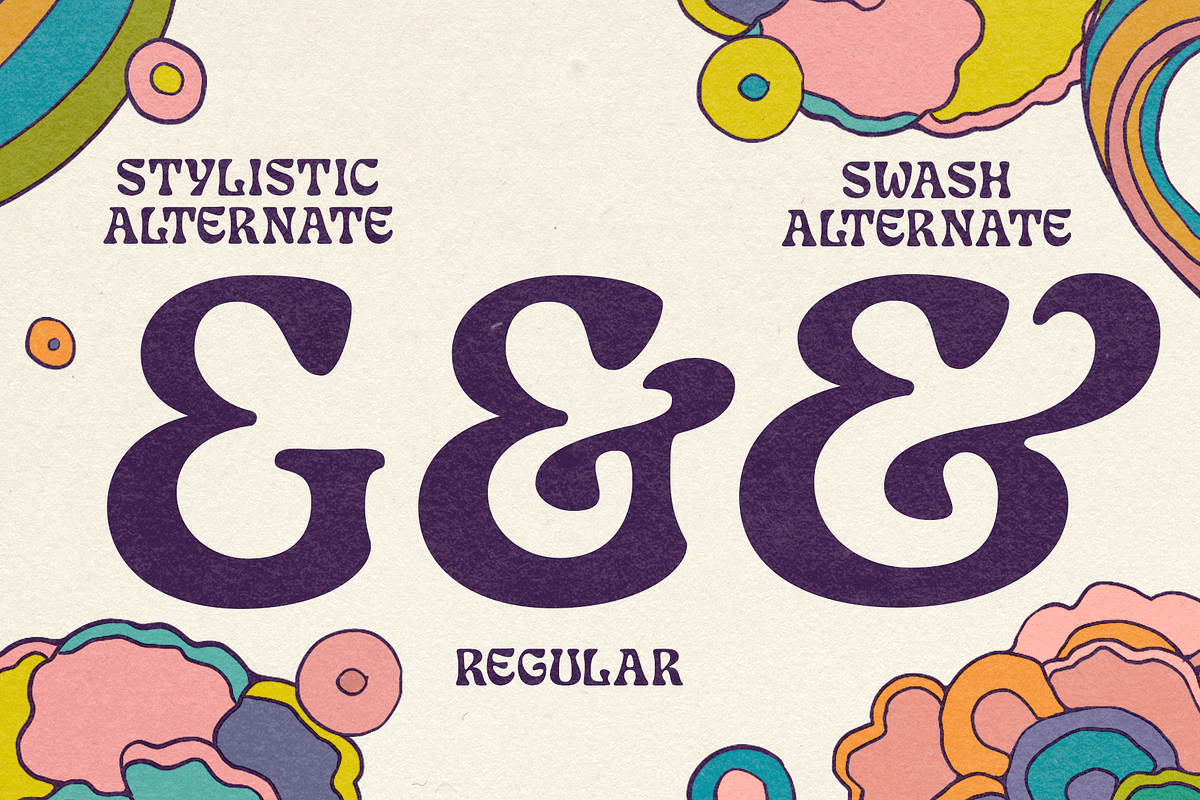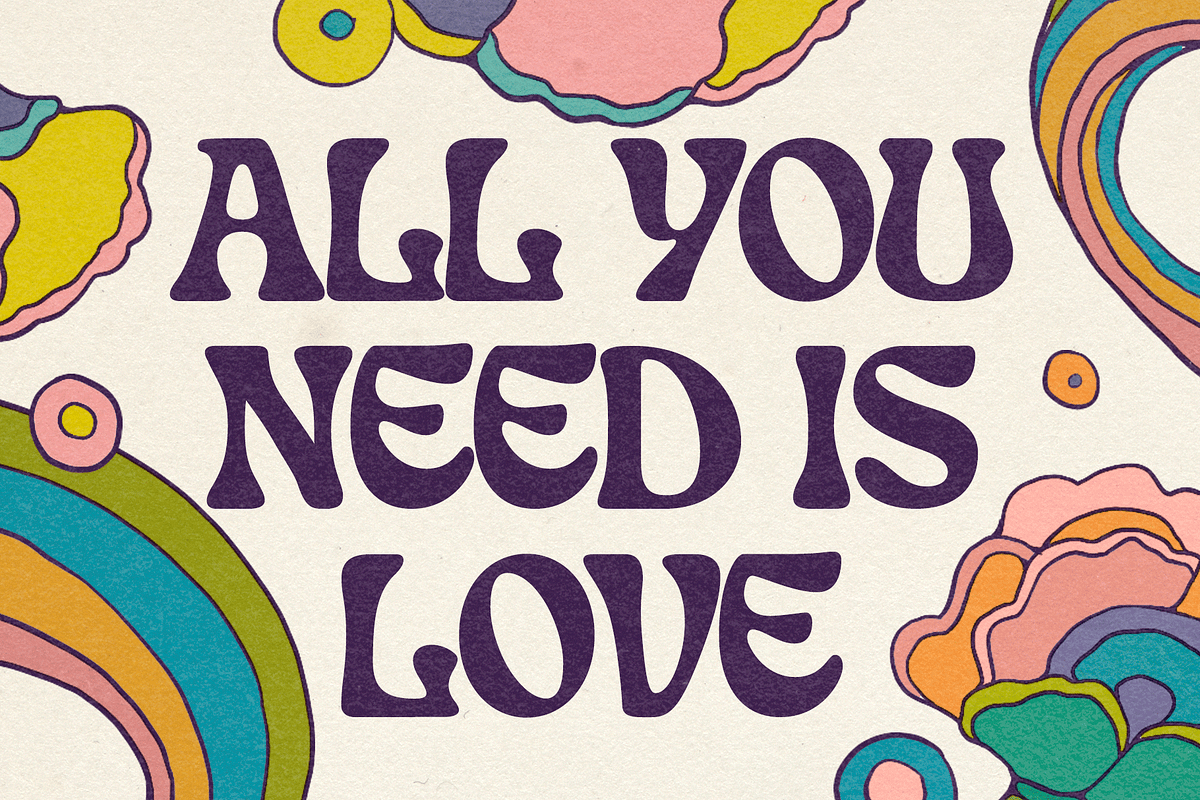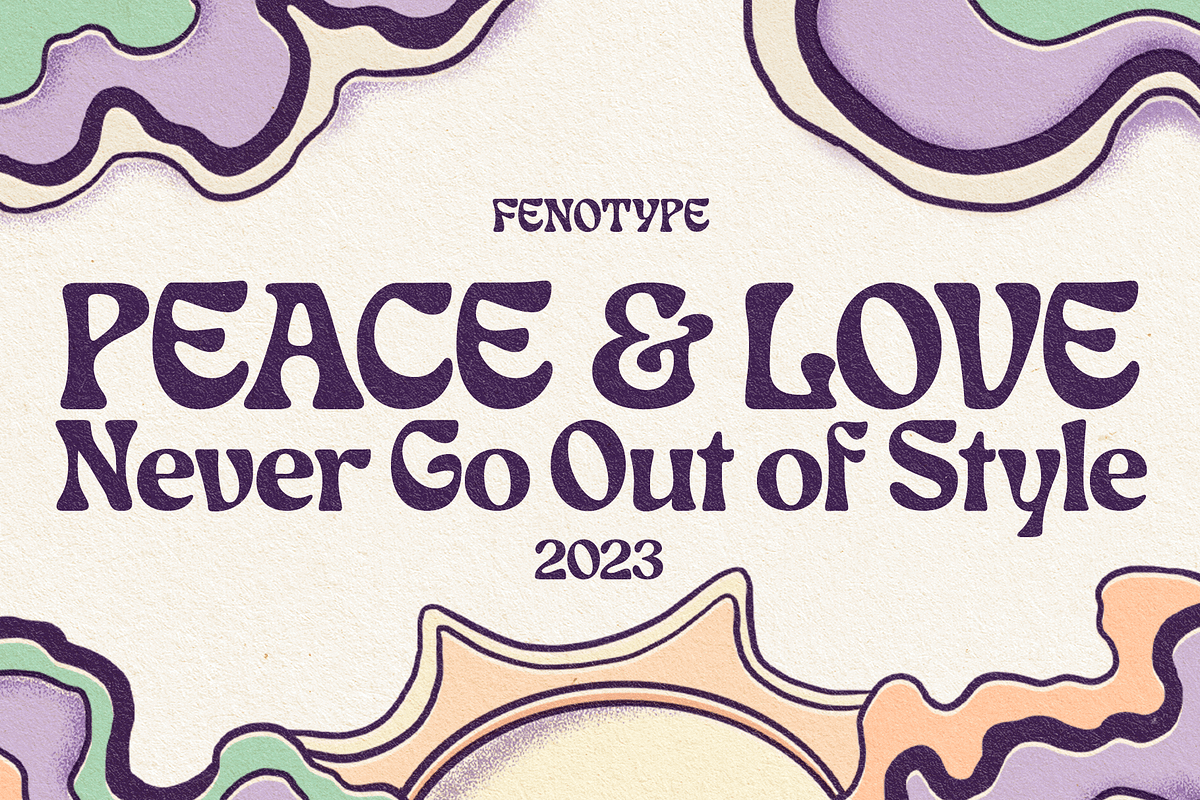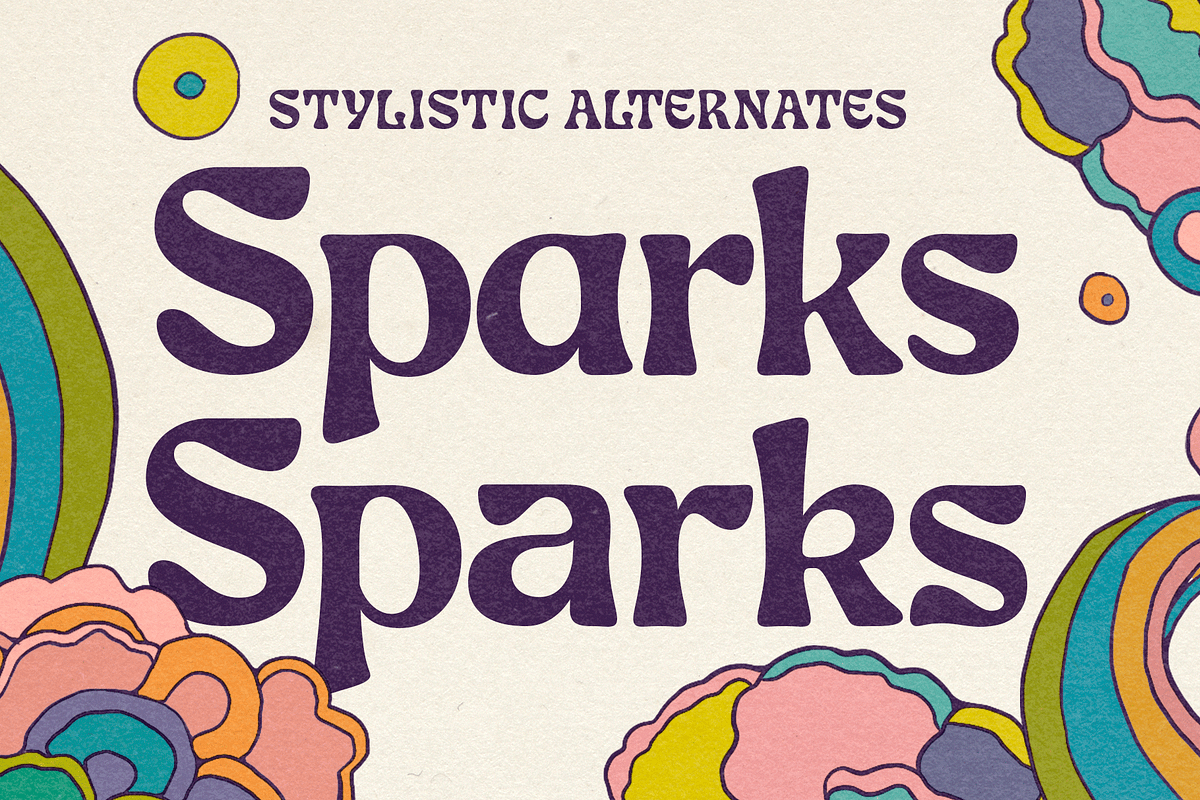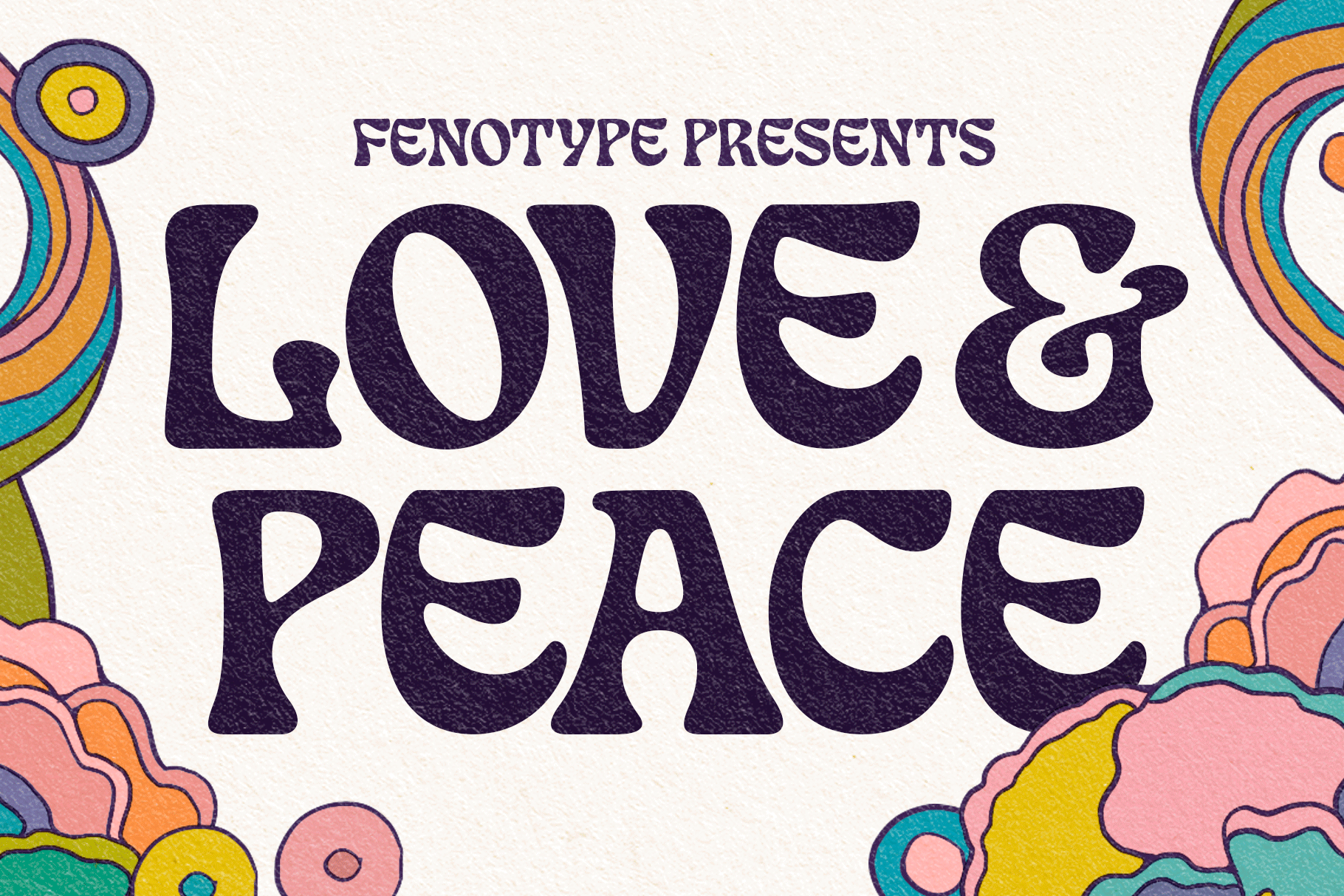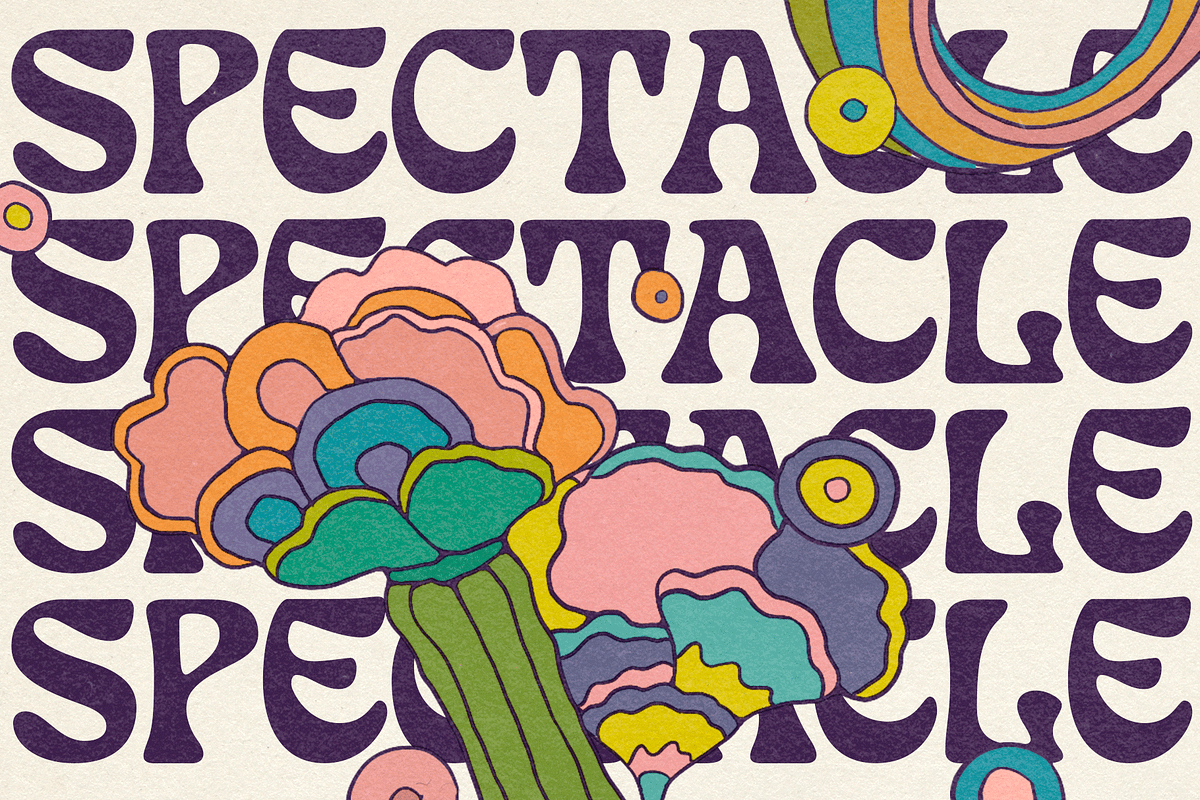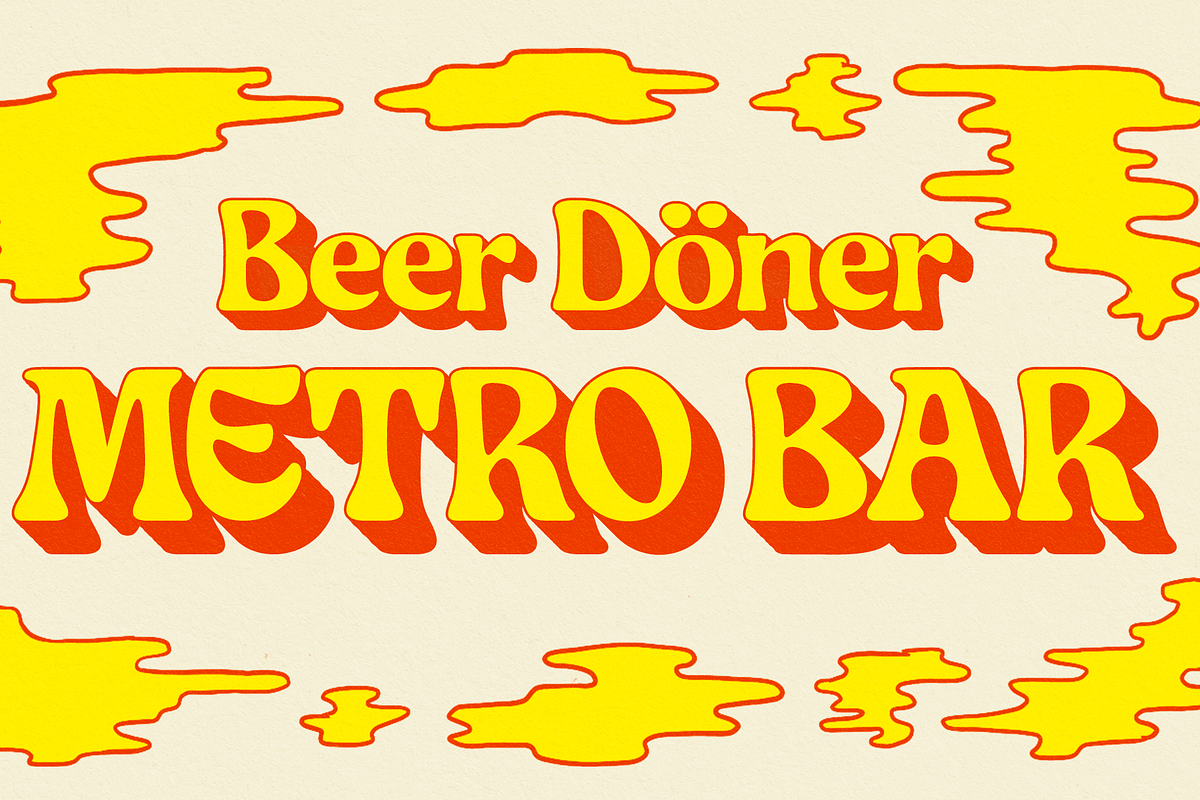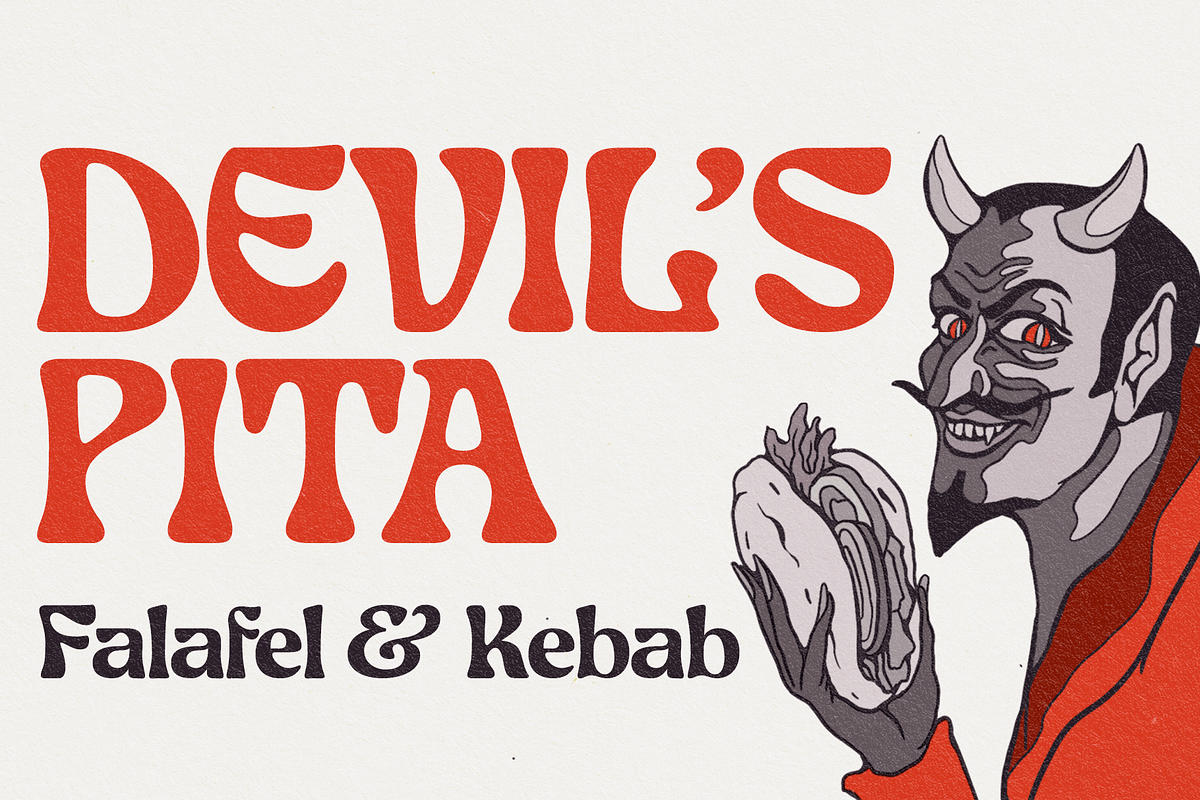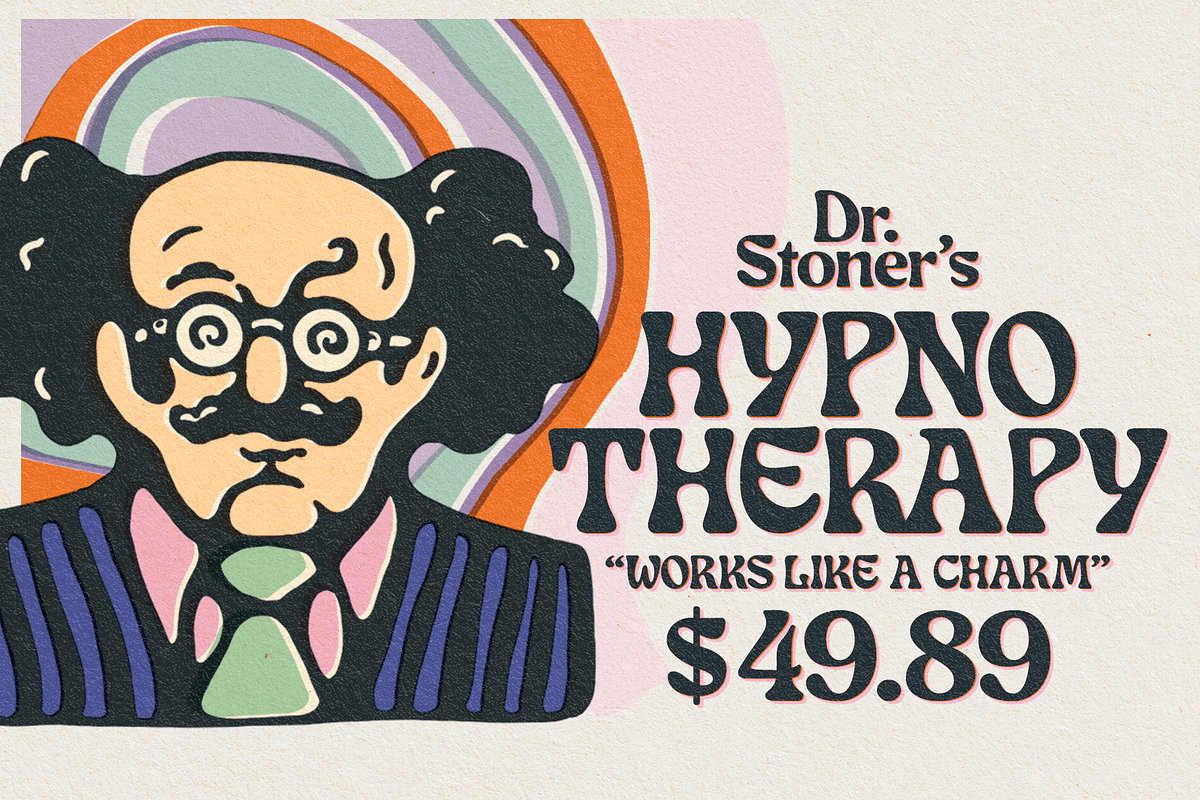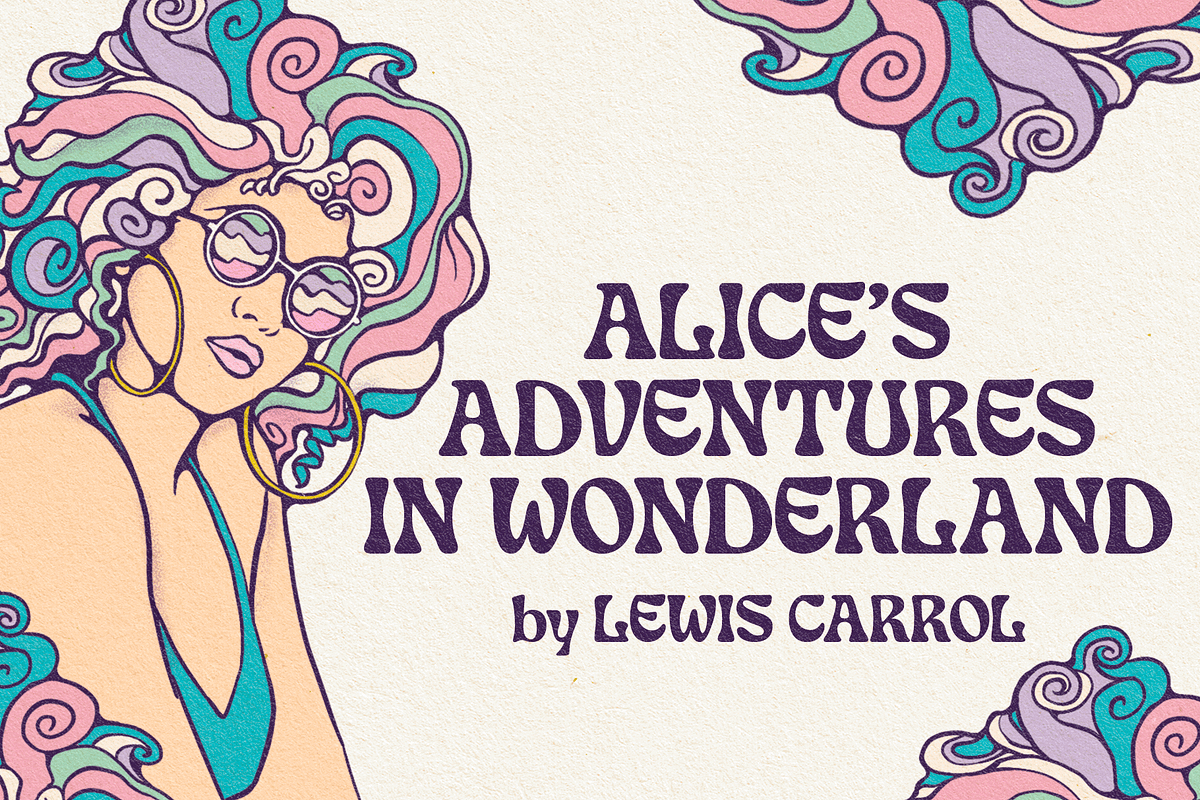
Love & Peace Art Nouveau Typeface
What's so funny 'bout peace love & understanding? Nothing really. Love and Peace is an Art Nouveau style typeface inspired by Eckmann-Schrift by Otto Eckmann in 1900. Love and Peace is filled with ethereal elegance and it's great for posters, magazines and psychedelic LP covers. Love and Peace is equipped with few Contextual Alternates and Standard Ligatures to prevent characters from colliding. In addition it has Stylistic Alternates for lowercase a, k, r and s, and Swash Alternates for ampersand and dollar sign.